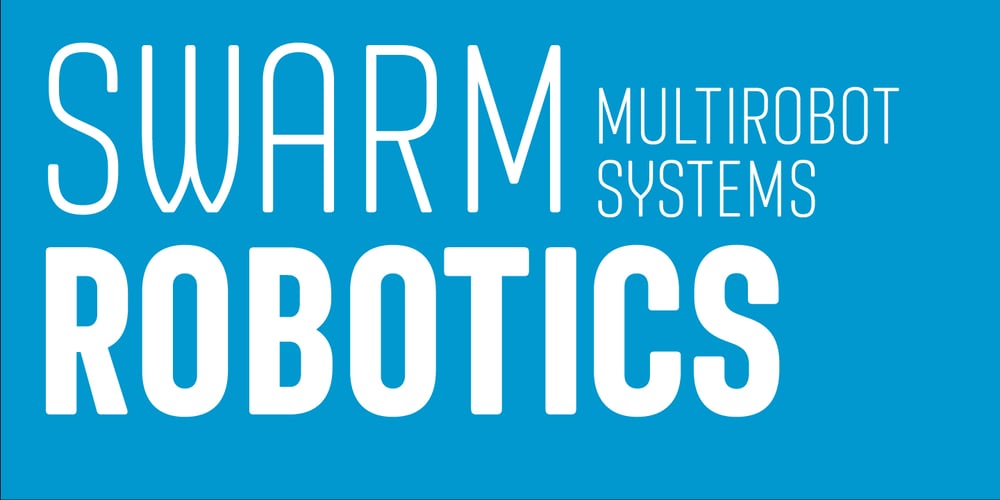
Sango Font Family was designed by Thanarat Vachiruckul and published by Katatrad. Sango contains 12 styles and family package options. Sango is a monospaced Sans Serif family with the closed forms — a normal sans and rounded version in 6 weights. This typeface is ideally suited for publication, corporate identity, branding, wayfinding as well as web and screen design.